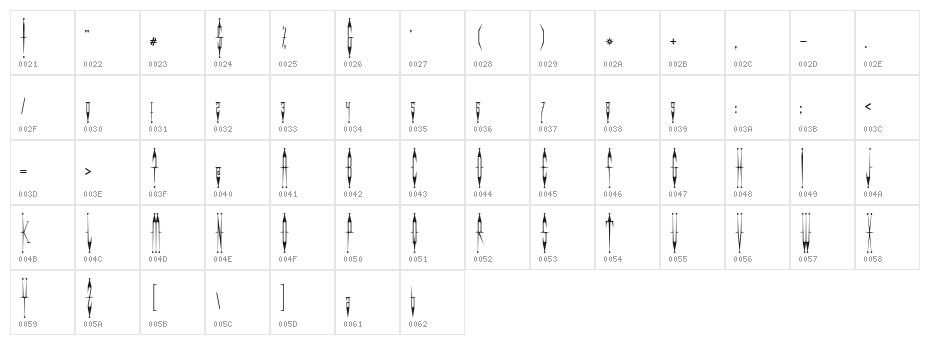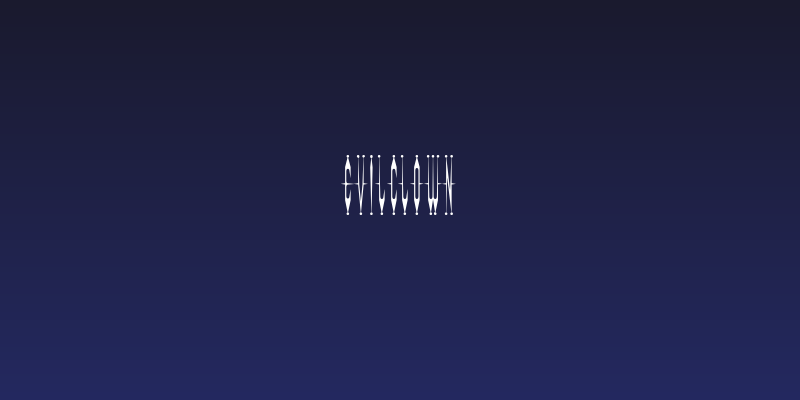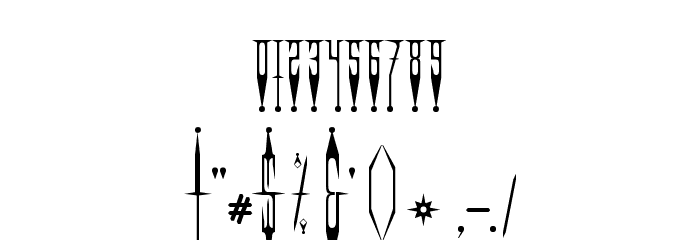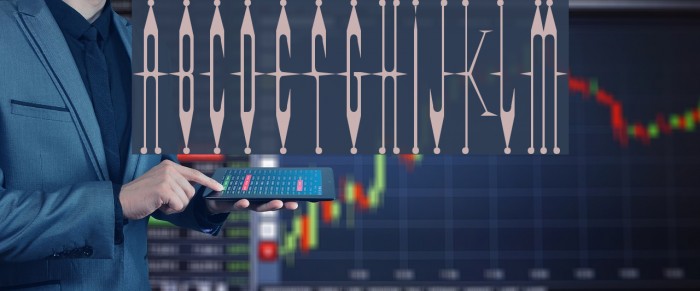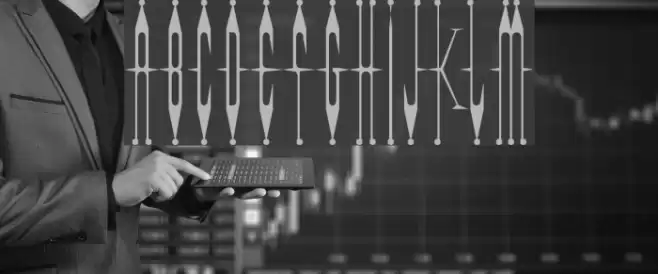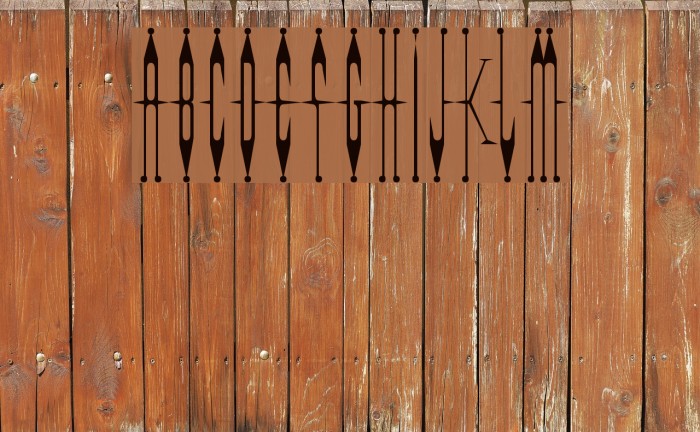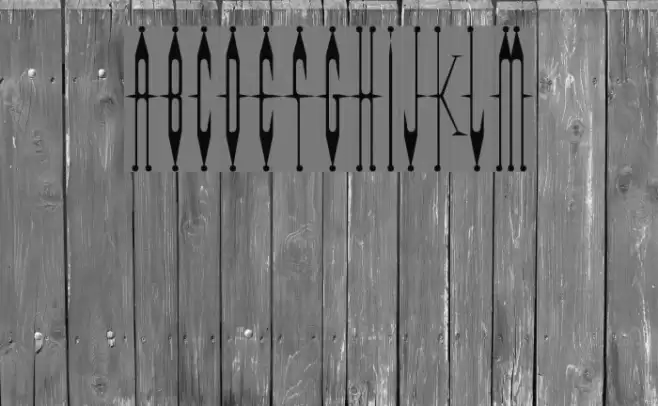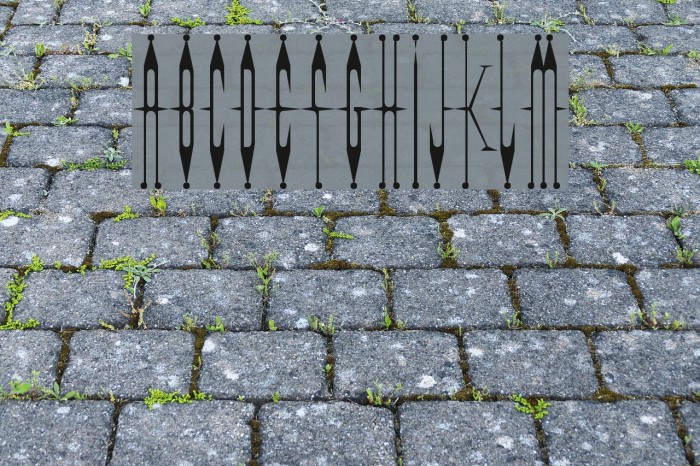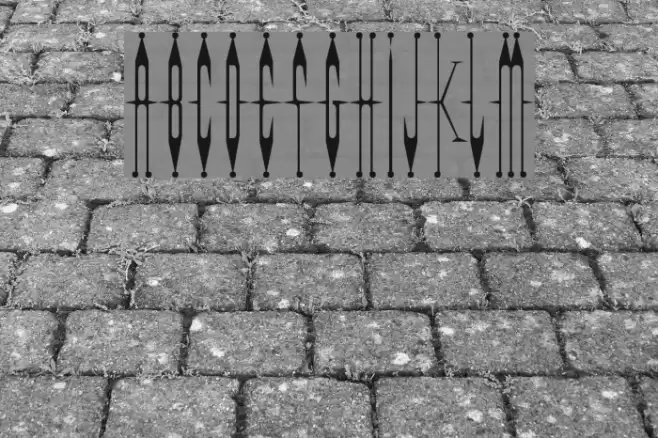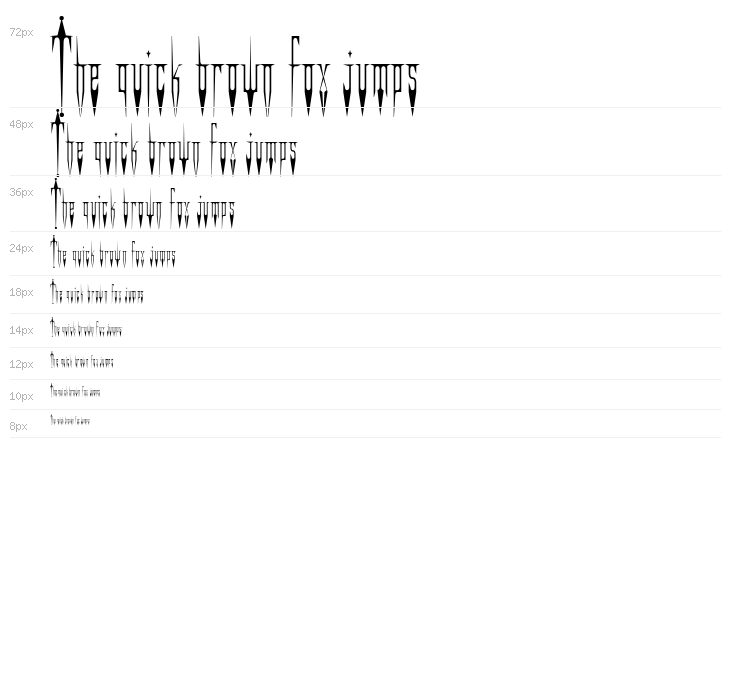
EvilClown Font
| Gesamtstil | Gothic, Decorative |
| Vorgeschlagene Projekte | Ideal for horror-themed posters, Halloween invitations, gothic book covers, and edgy branding materials. |